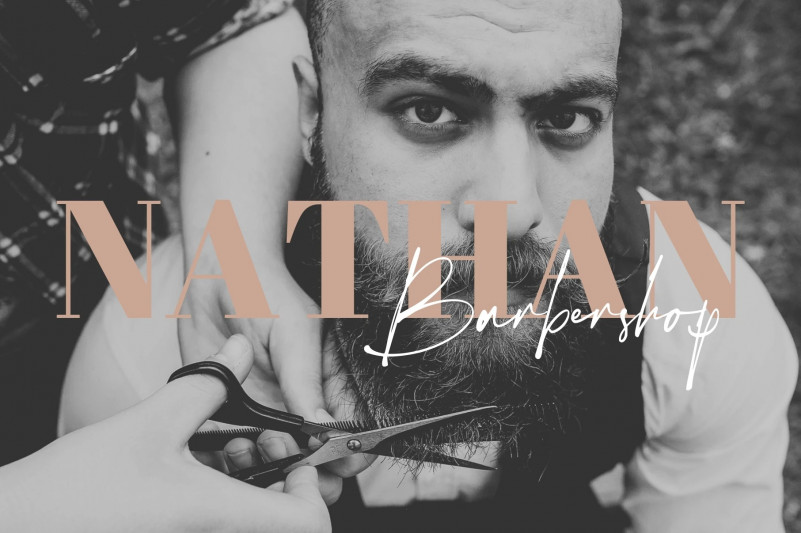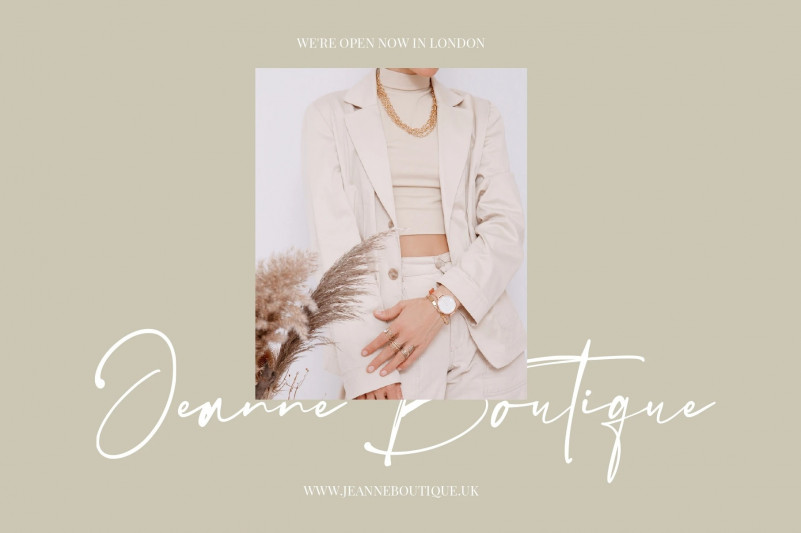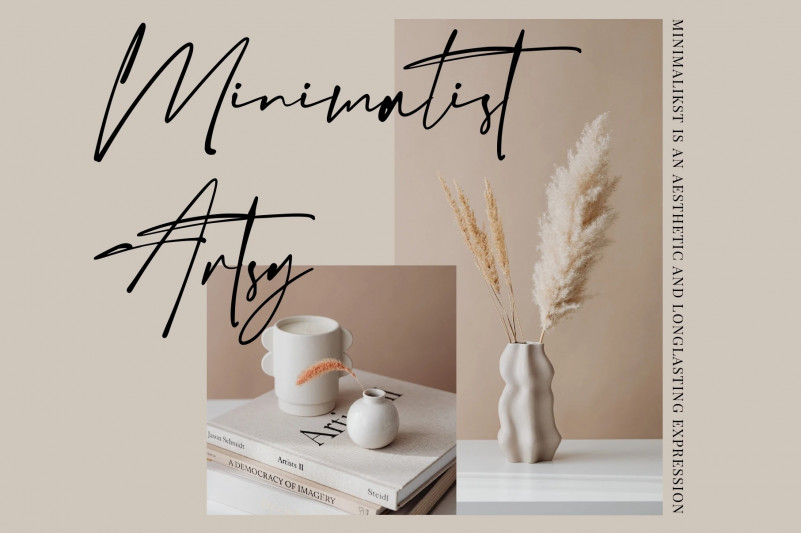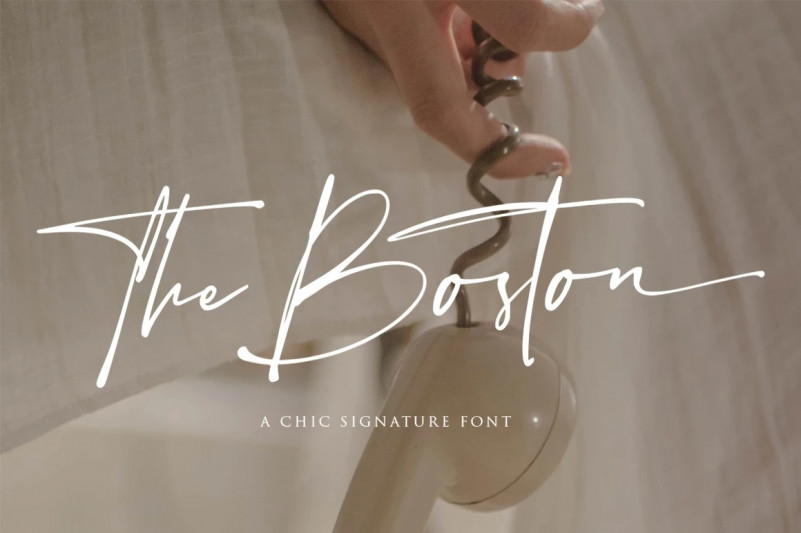
The Boston Handwritten Font
This font is modern handwritten with a random thickness and charming gesture. Inspired by a sweet love contemporary handwriting fonts with ligatures and alternative styles ready to add unique look and bloom on your design
It easily cooperating together For Magazine, Movies, or Book Titles. For Photography, Wedding Invitation, Restaurant Menu or T-shirt Design. For Flyers, Banner Ads, web and printing. From Food and Fashion to a Cosmetics product.